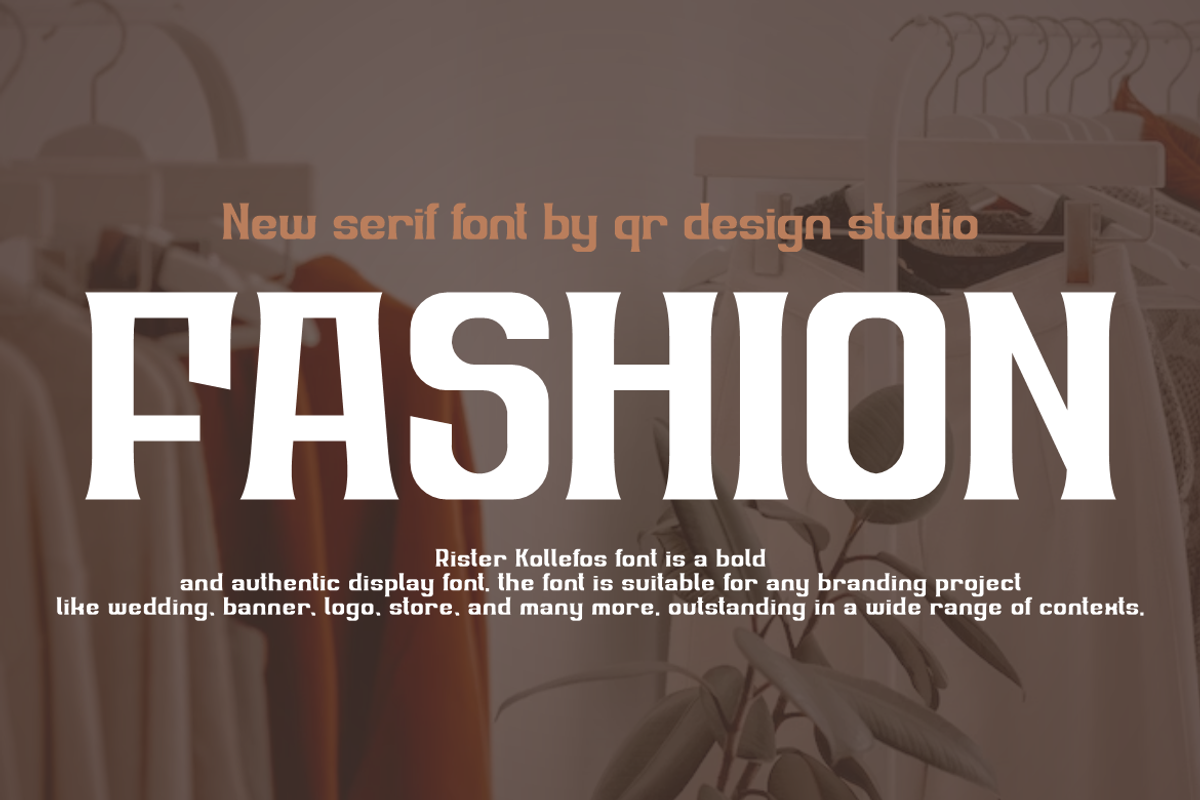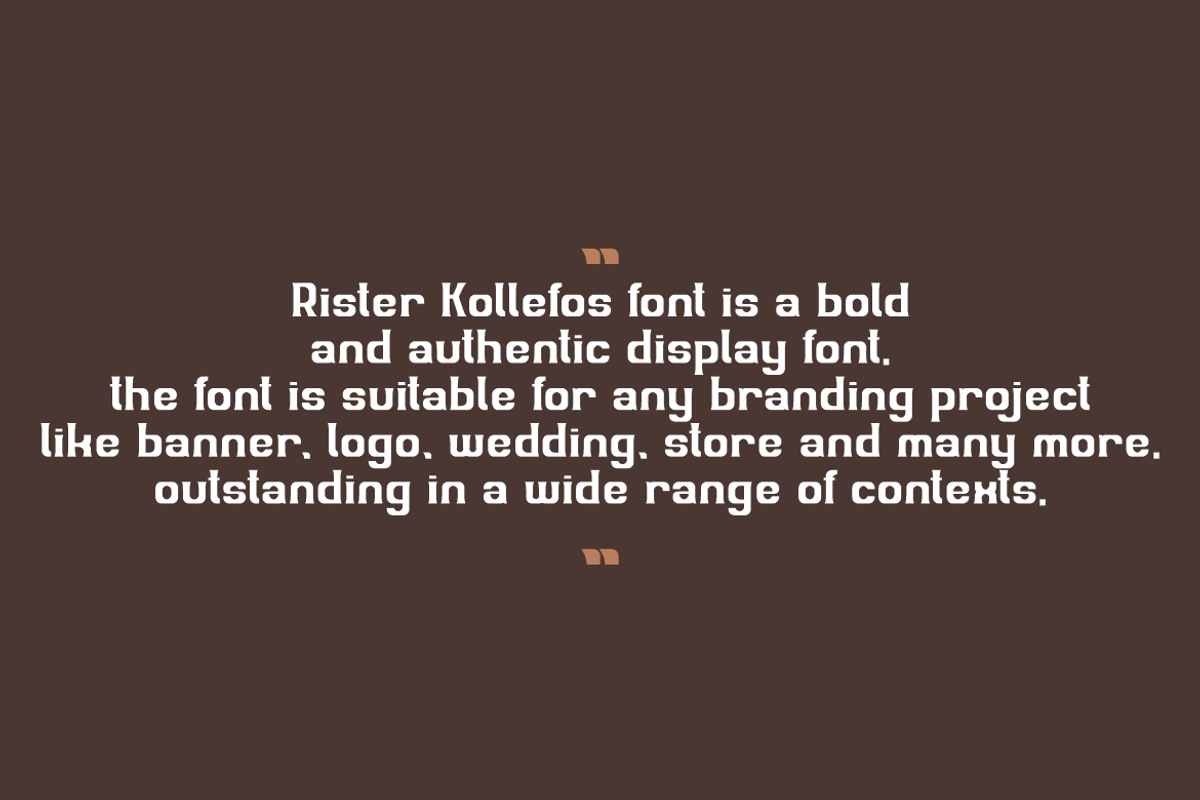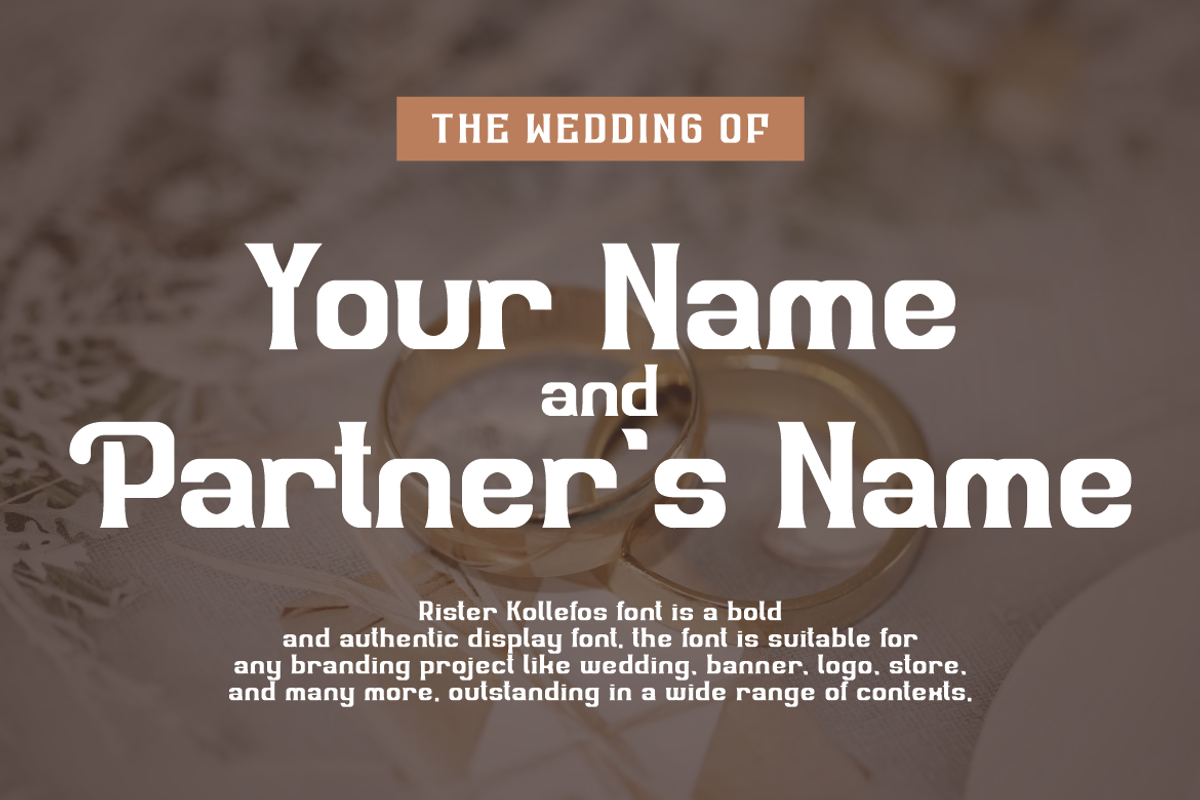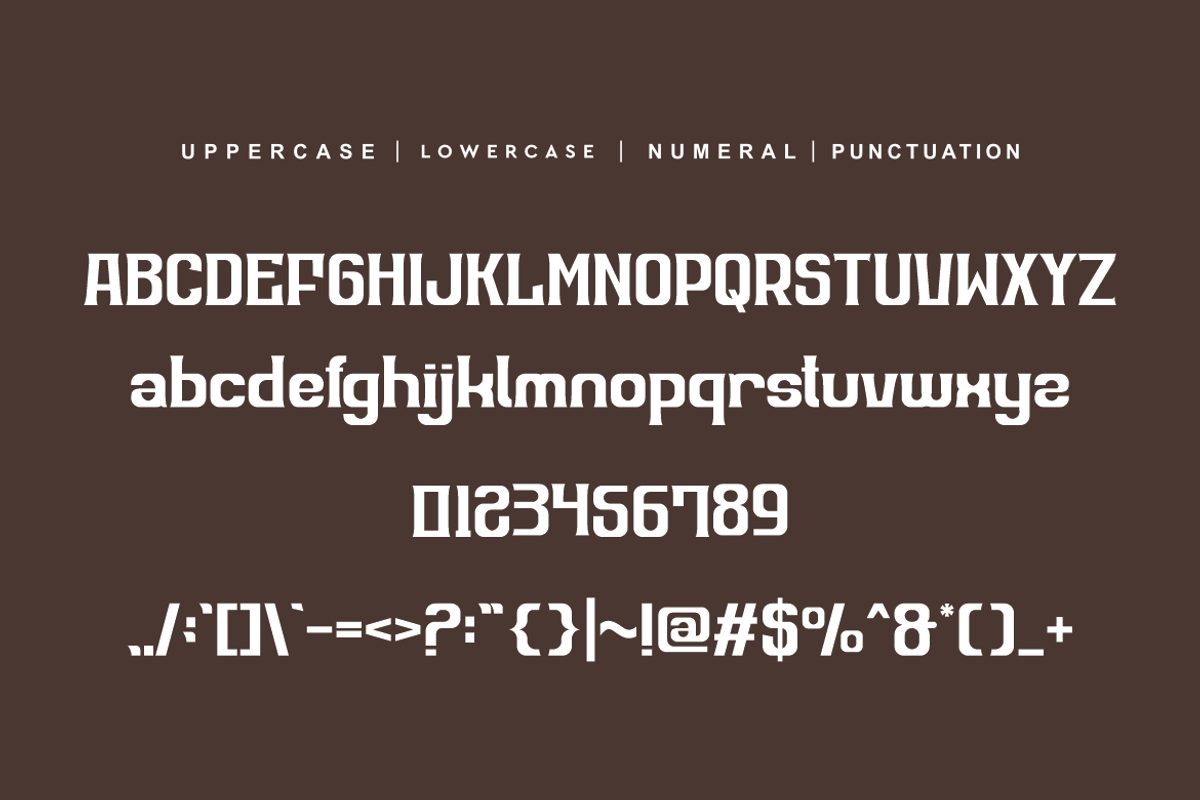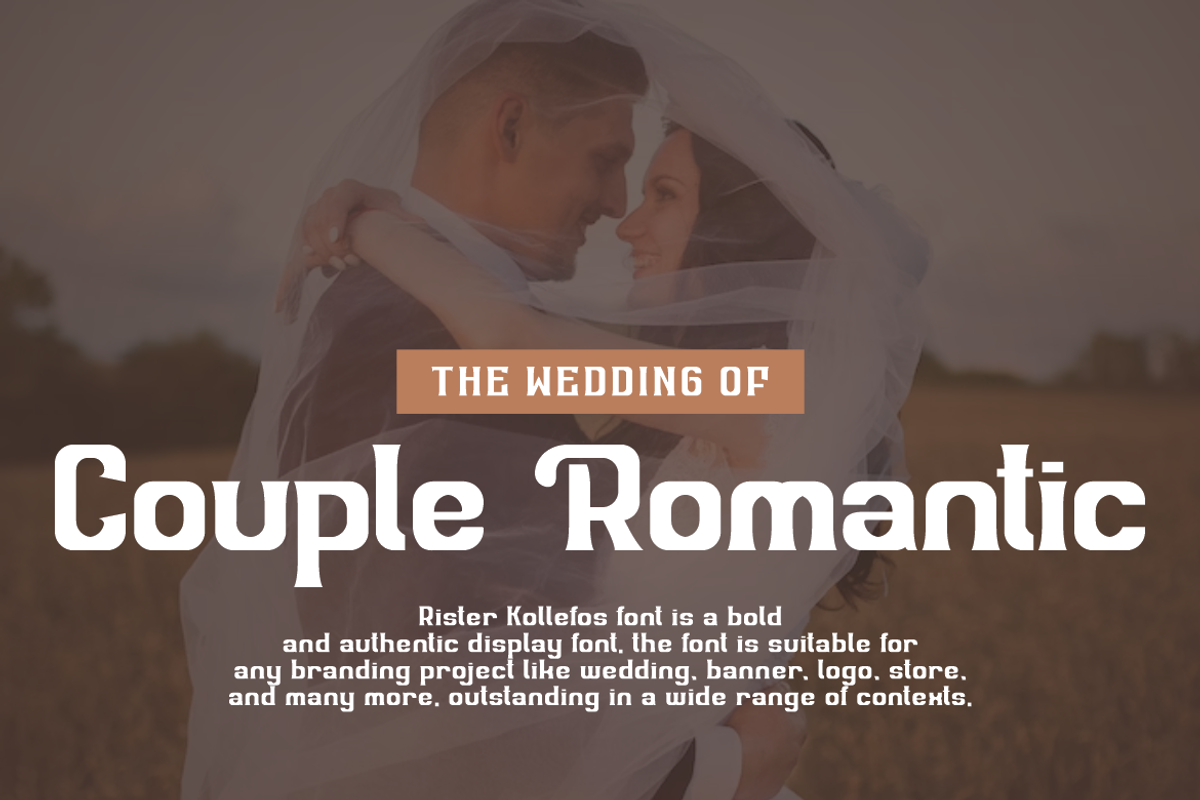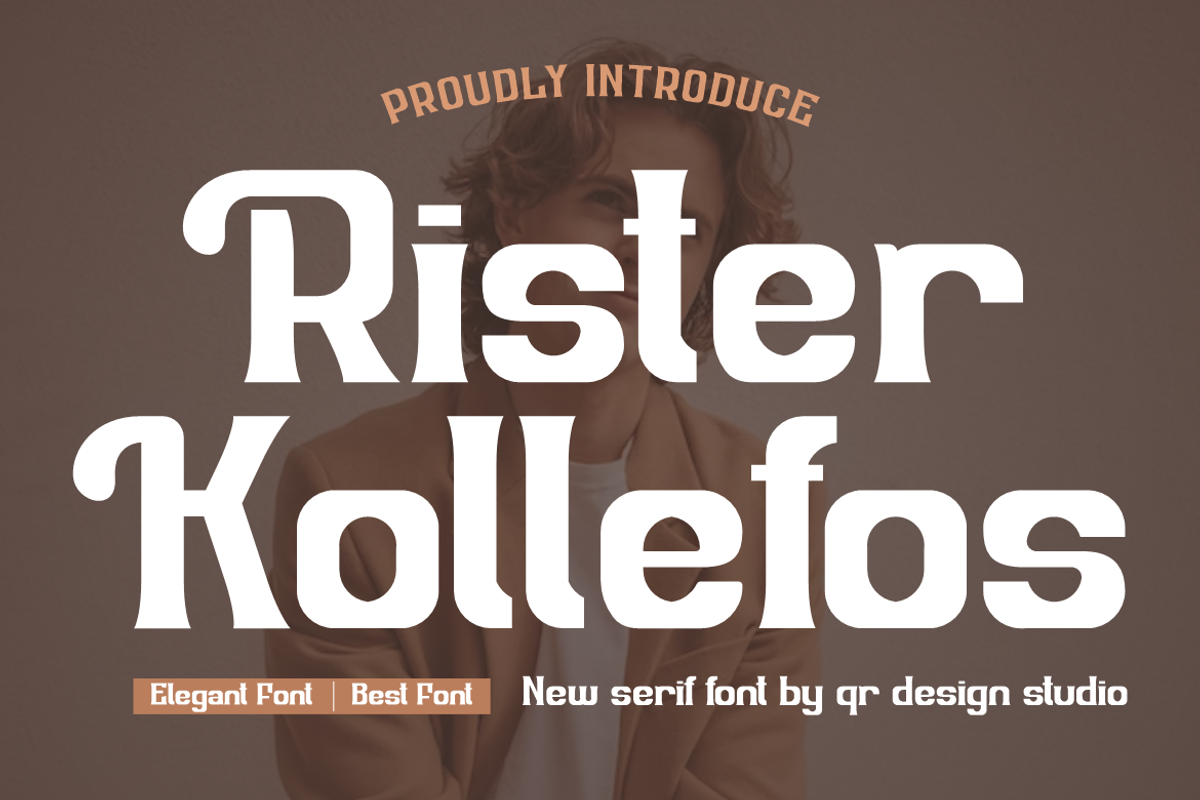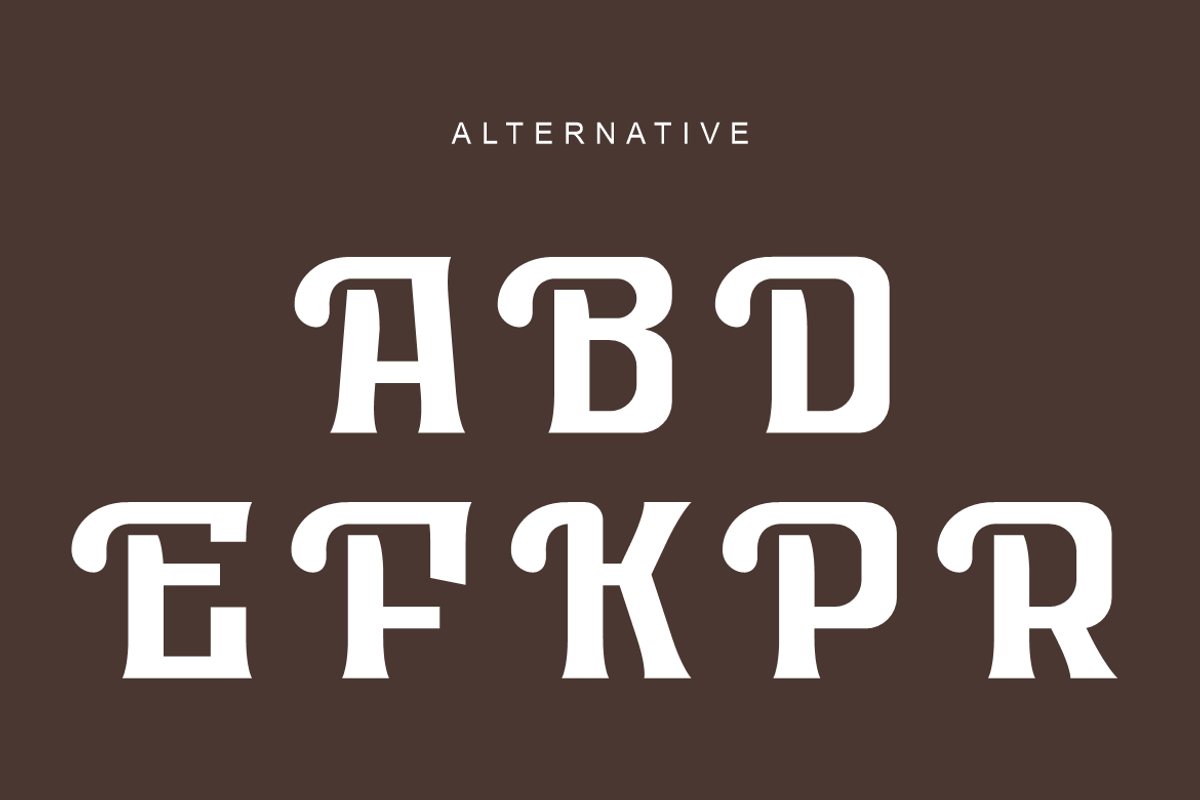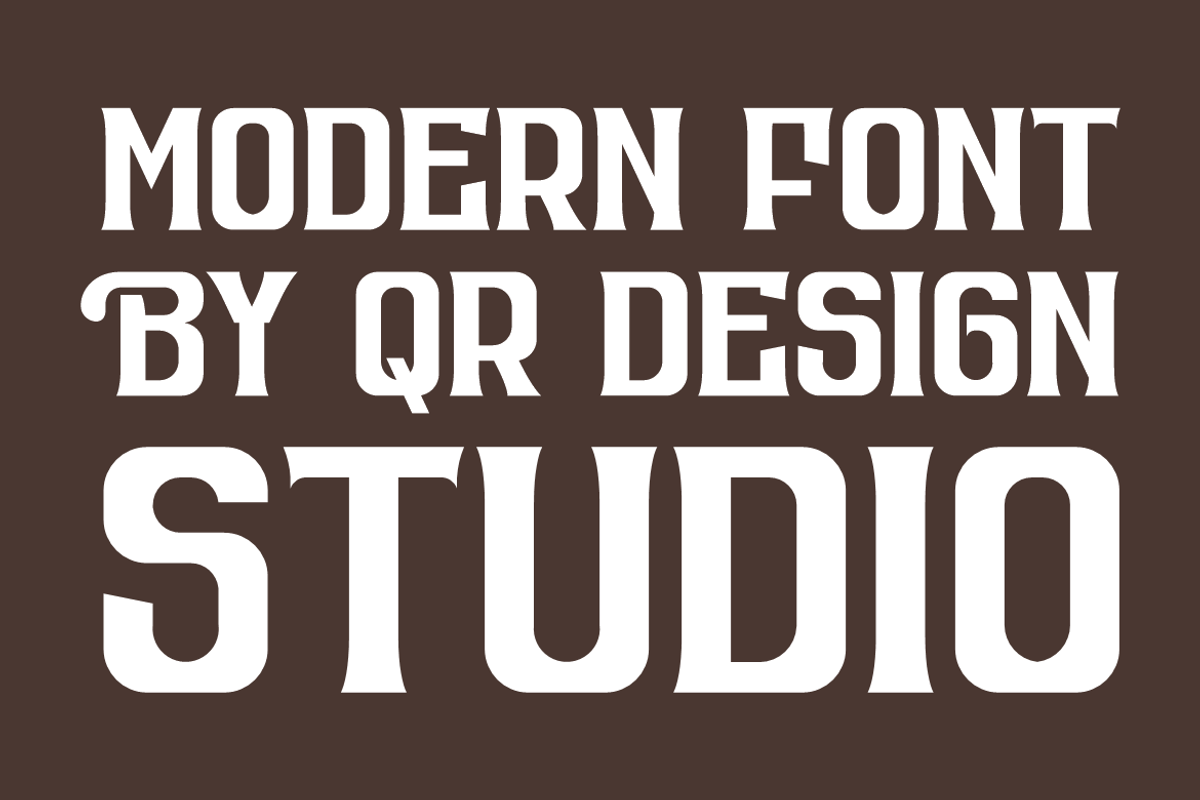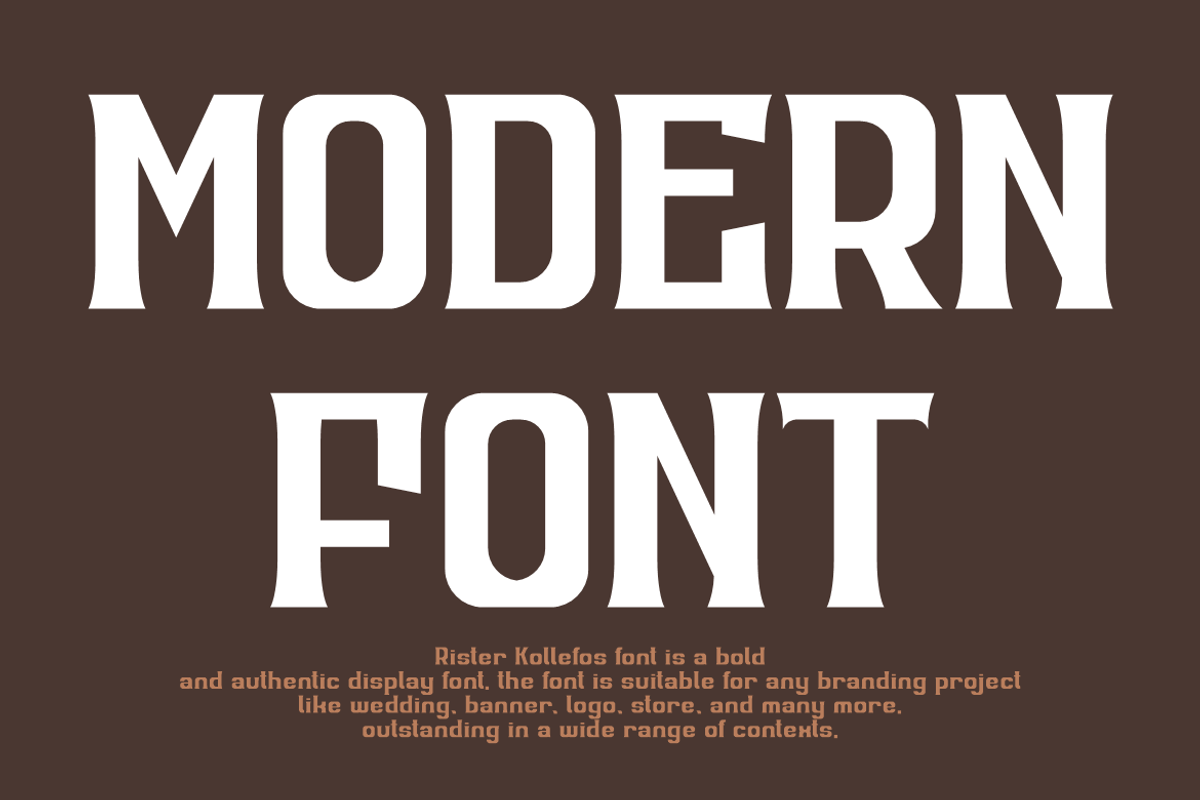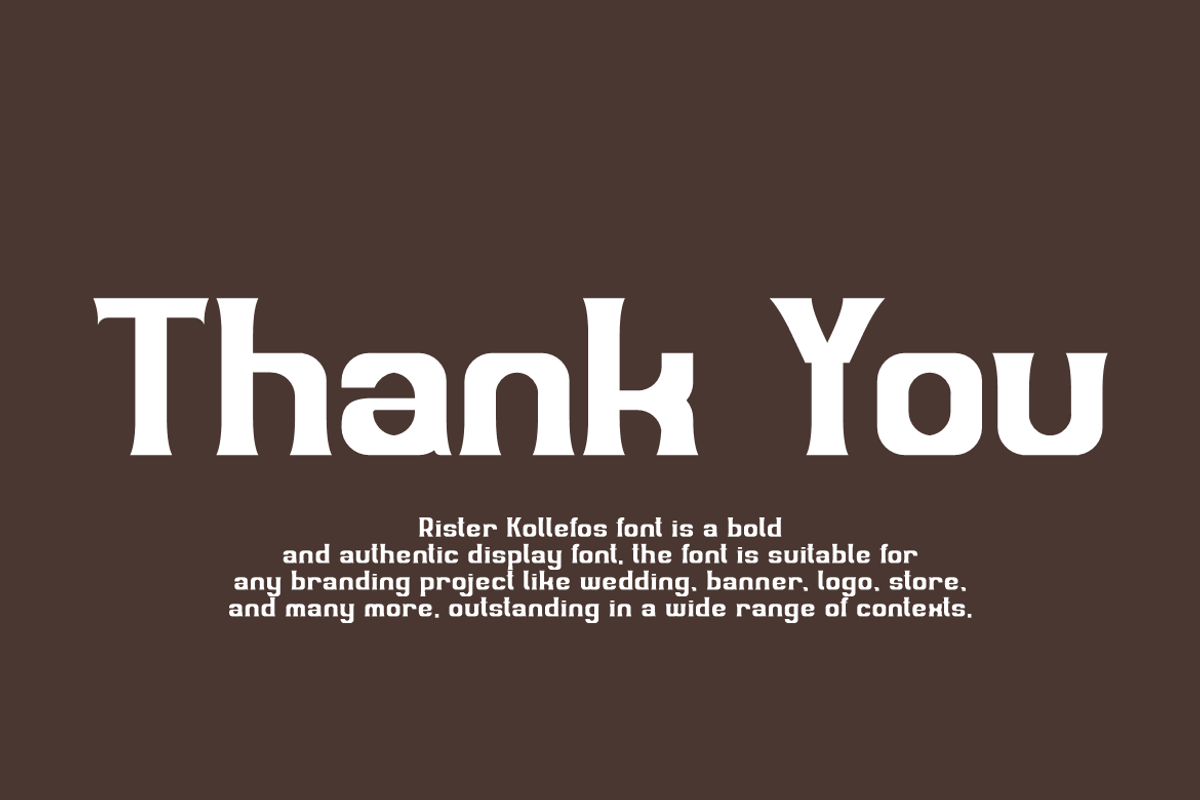
Rister Kollefos
Rister Kollefos Font is a bold and authentic display font. The font is suitable for any branding project like logo, wedding, fashion and many more. Outstanding in a wide range of contexts.